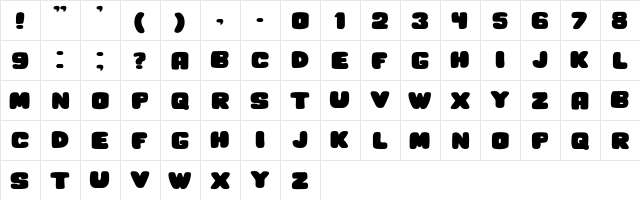
Hesitation Regular
Design Context for Hesitation Typeface
Hesitation is a composed and adaptable typeface that performs quietly and consistently across a wide range of design contexts.